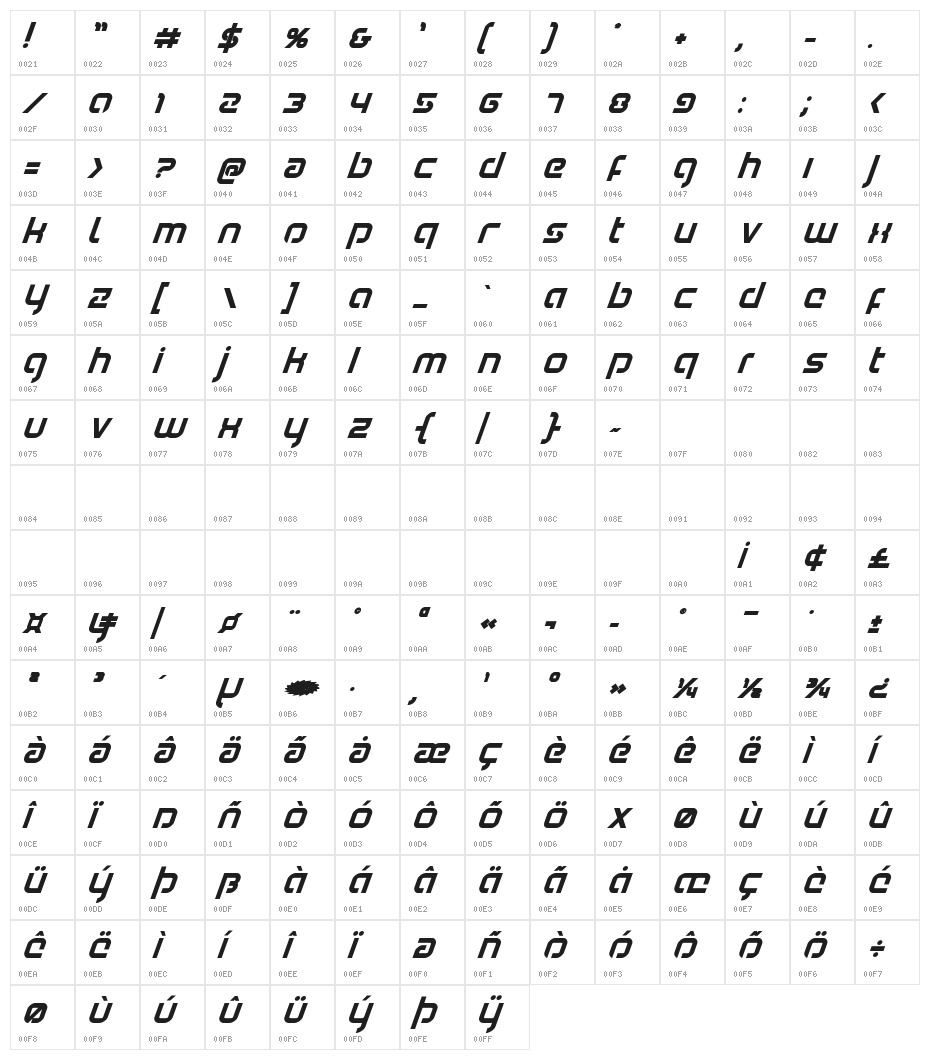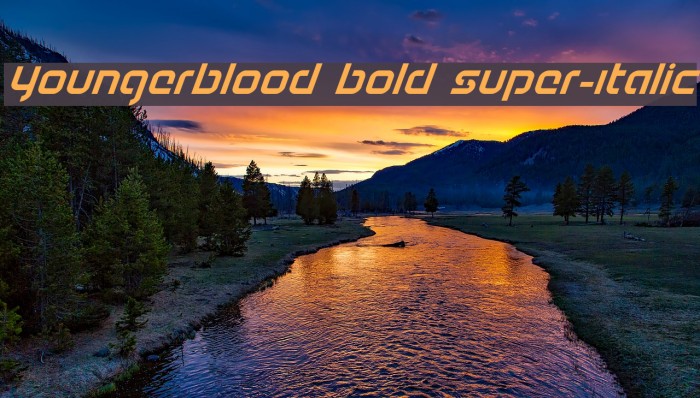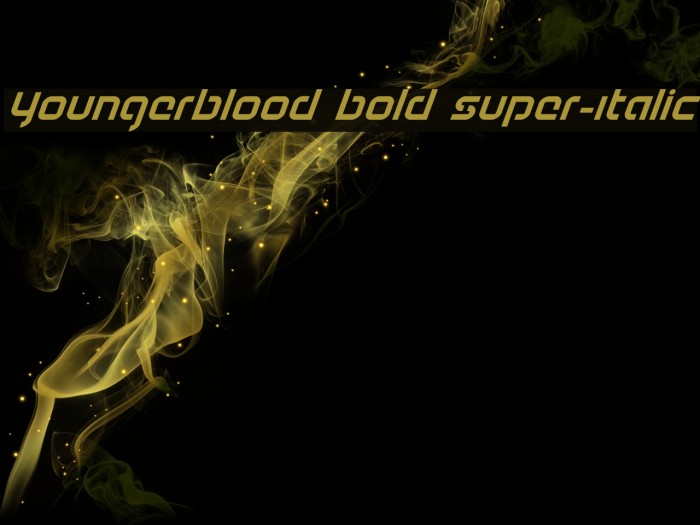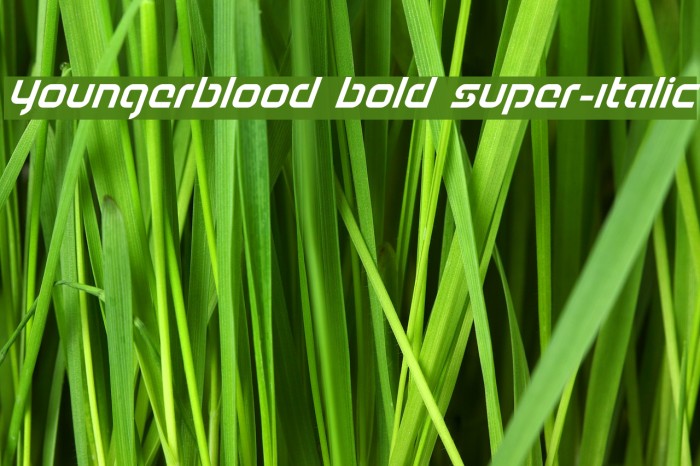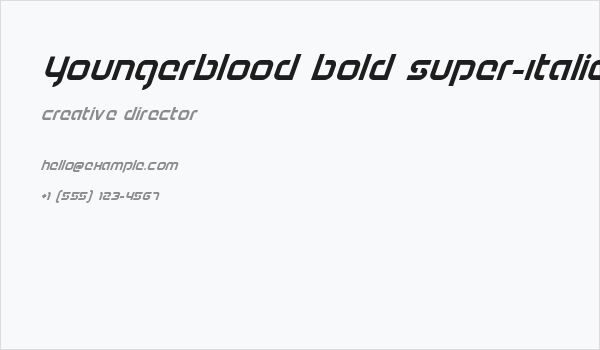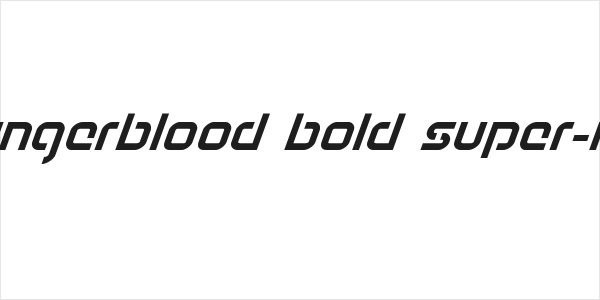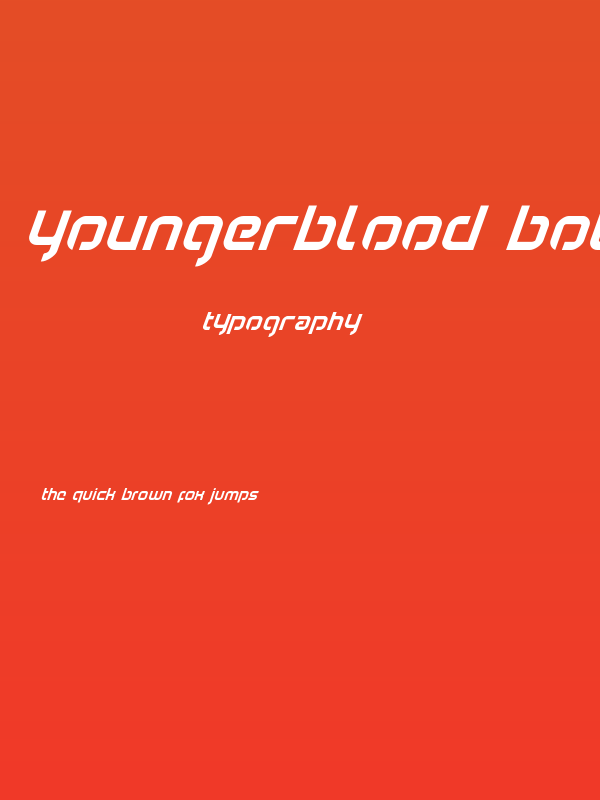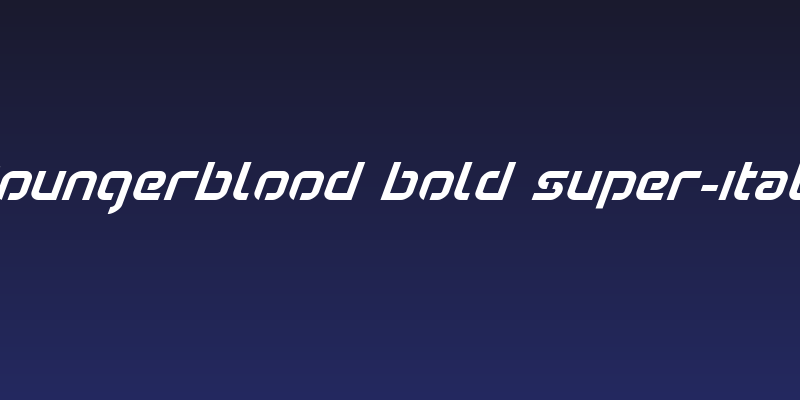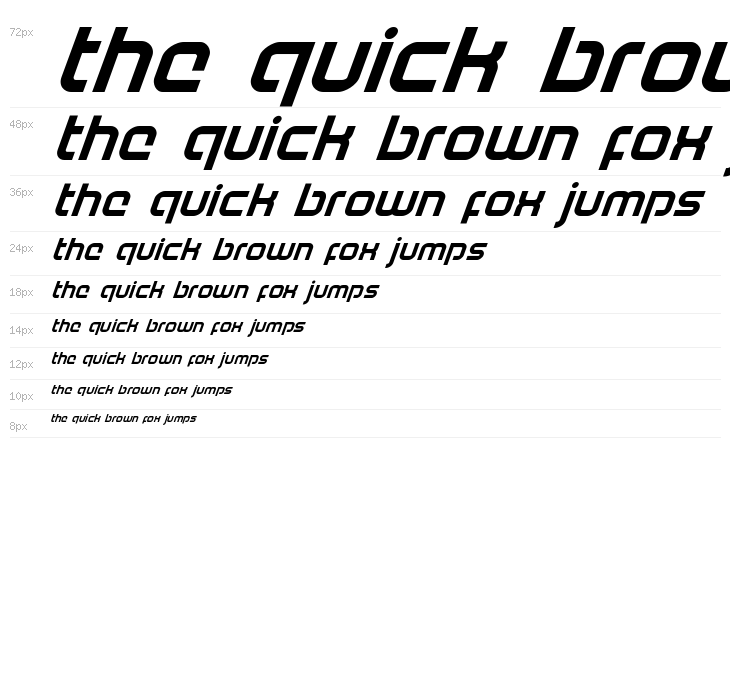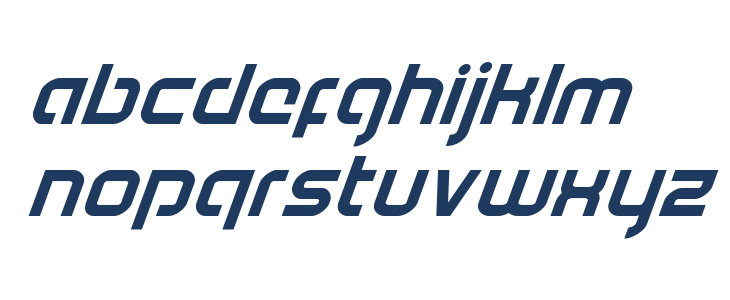
Youngerblood Bold Super-Italic Font
Youngerblood Bold Super-Italic Description
This font features a bold and dynamic design with a strong italic slant, giving it a sense of motion and energy. The characters are crafted with a modern, geometric style, characterized by sharp angles and clean lines. The uppercase and lowercase letters maintain a consistent height, creating a uniform appearance. The numerals and special characters are designed to complement the alphabet, maintaining the same bold and italicized style. This font's unique style makes it stand out, offering a contemporary and edgy look.